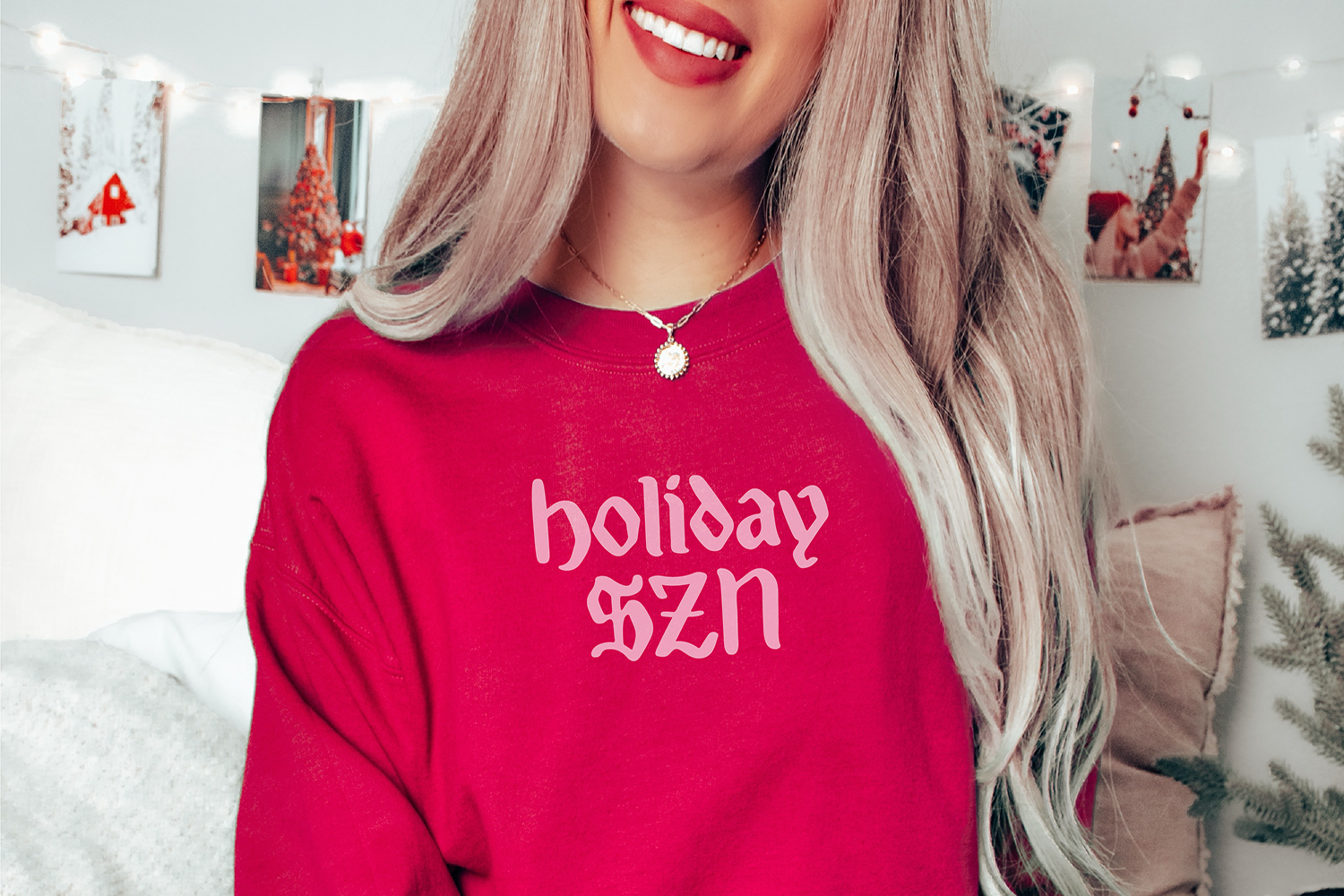
"Jolly Santa Blackletter" a hand-lettered vintageChristmas font
Jolly Santa BL is perfect for your holiday projects. Use it for Christmas cards, winter crafts for decor and more! This font includes numbers, and basic punctuation.